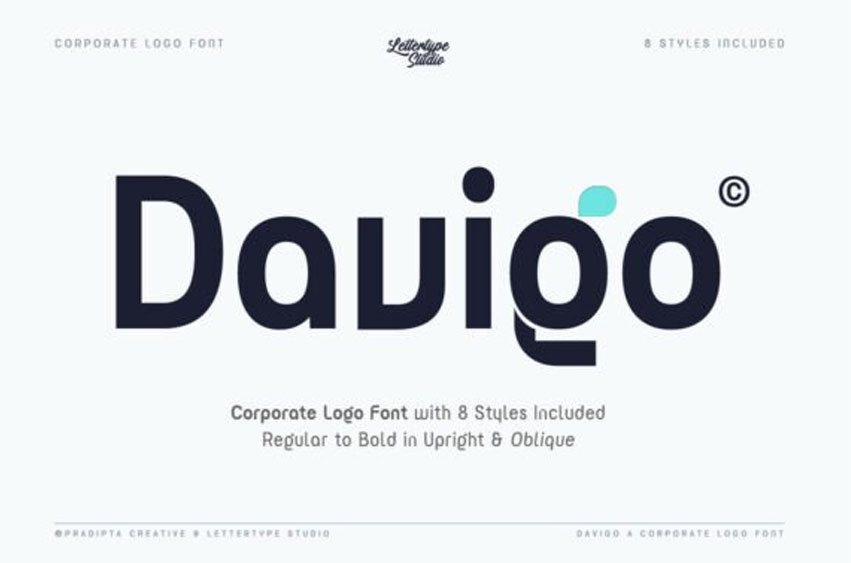
Davigo Font is a clean, versatile geometric sans-serif font that brings professionalism and clarity to your design projects. Inspired by modern business culture and global branding standards, Davigo features sharp alignment, balanced letterforms, and smooth curves that make it both readable and iconic.
It’s built for high-impact headlines, powerful branding, pitch decks, logo types, web UI, and more.